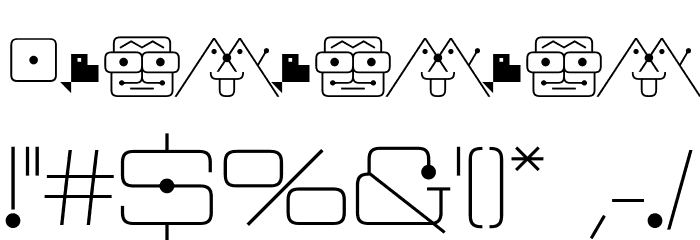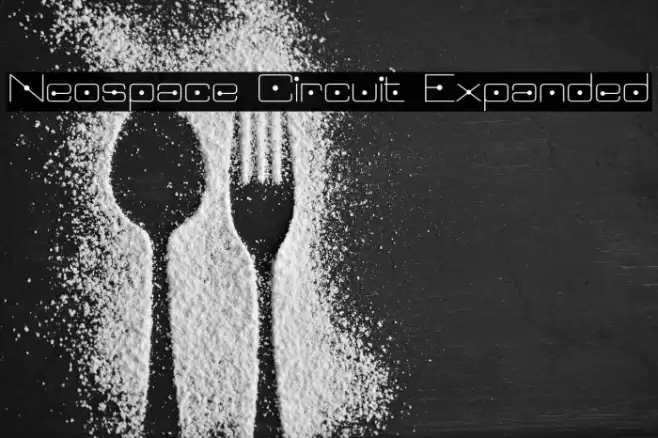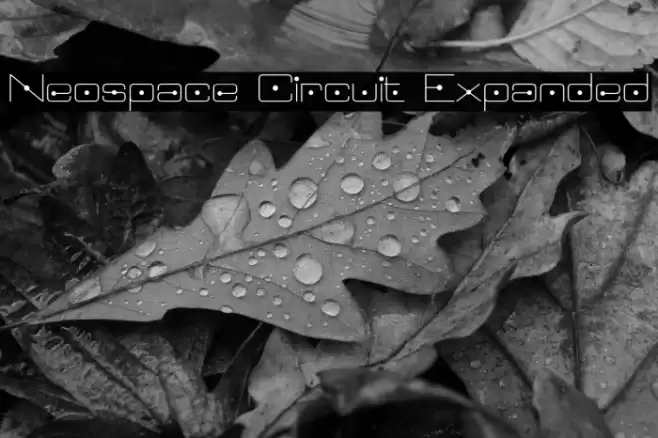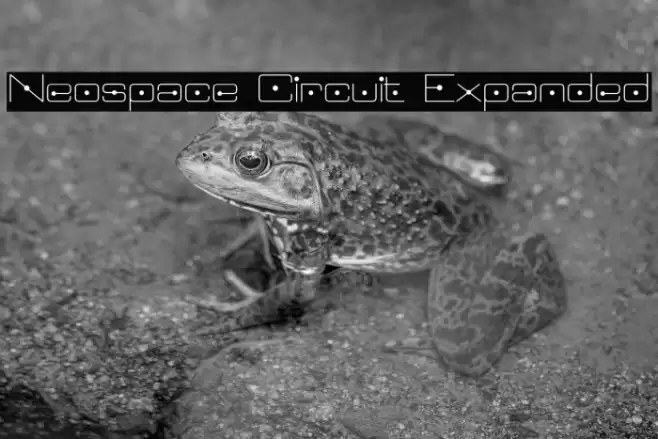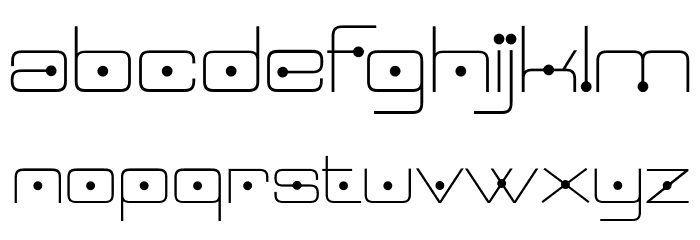
Neospace Circuit Expanded Font
Neospace Circuit is an avant-garde typeface designed for lovers of technology and science fiction. With its elegant extended proportion and geometric minimalism, Neospace redefines typographic aesthetics with a perfect fusion between modern and futuristic
LargeurExpanded
Espacement des caractèresMonospaced
ContrasteLow
Style généralModern
Cas d'utilisationLogos, Headlines, Digital Interfaces
Projets proposésIdeal for tech branding, digital interfaces, sci-fi posters, and innovative product packaging.